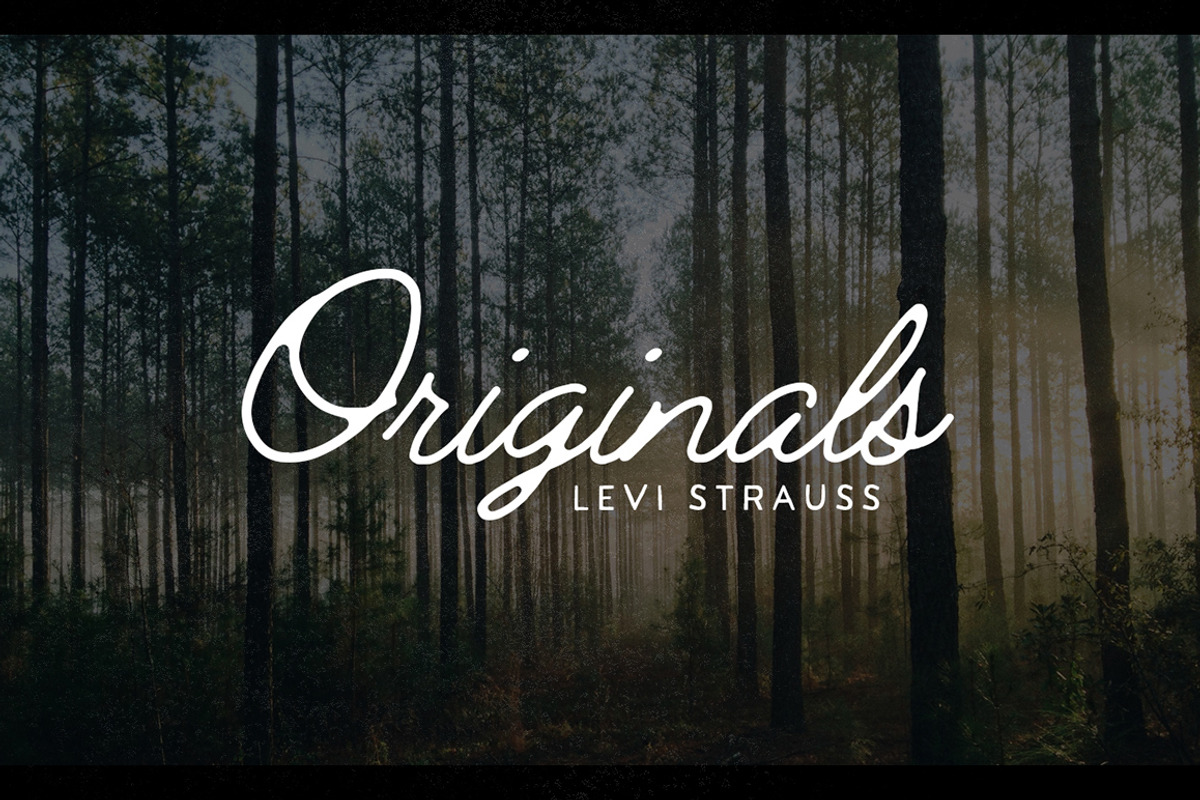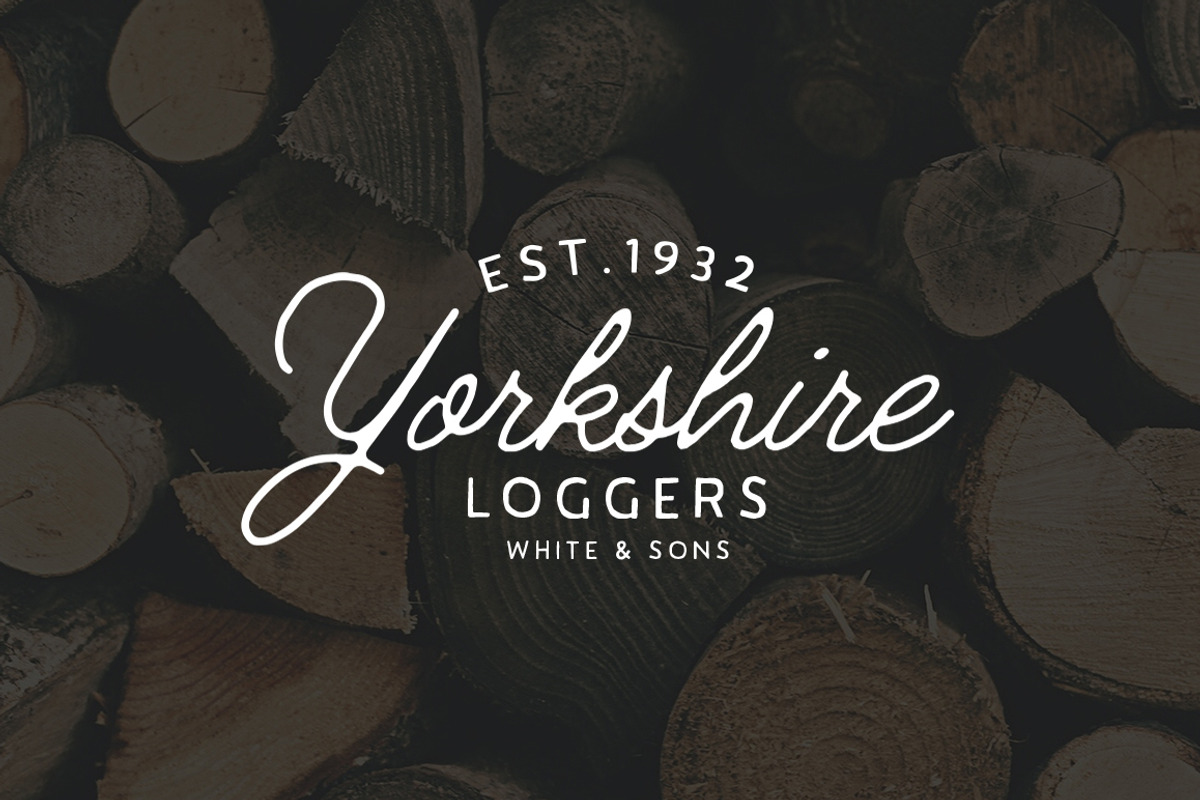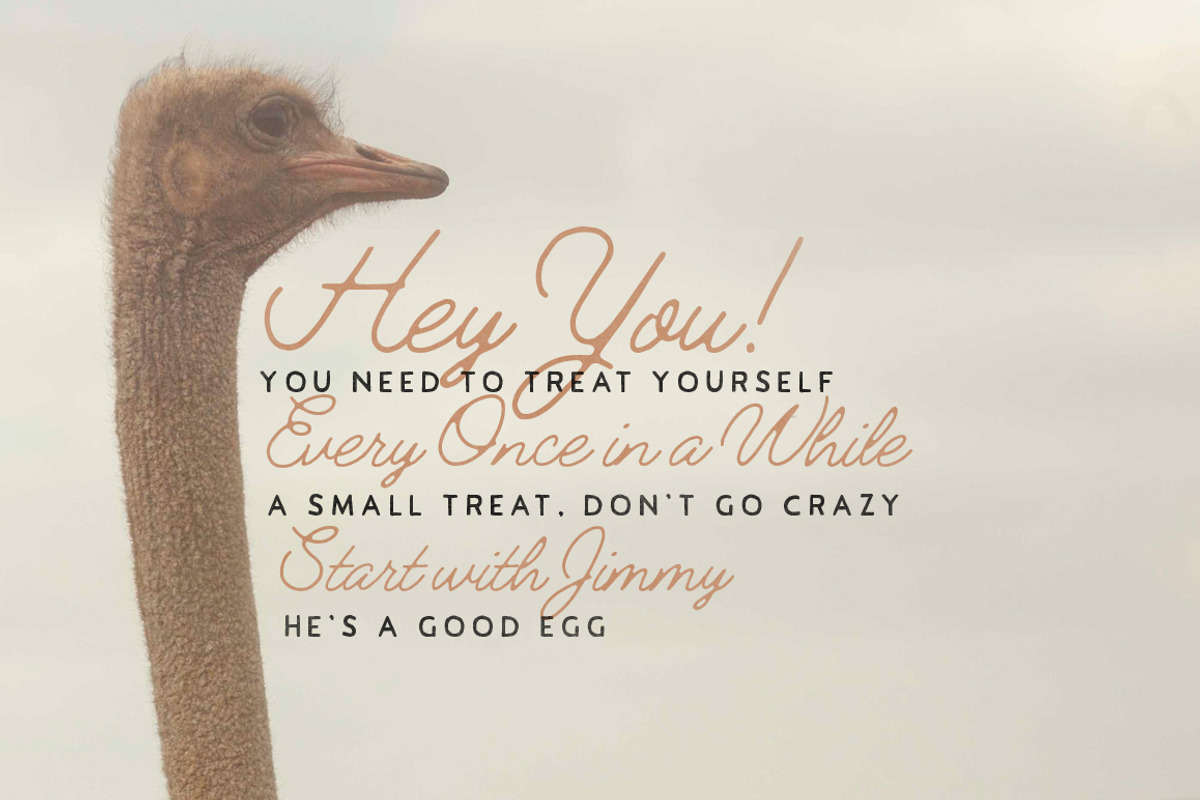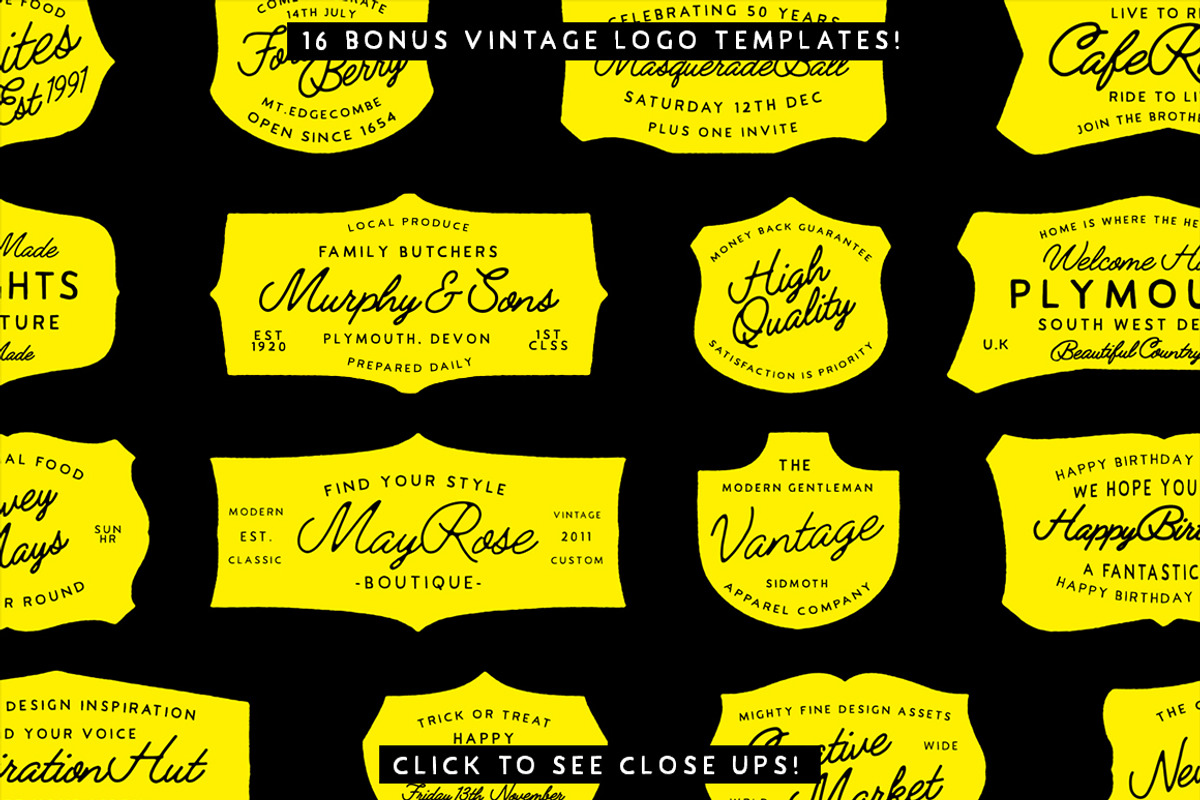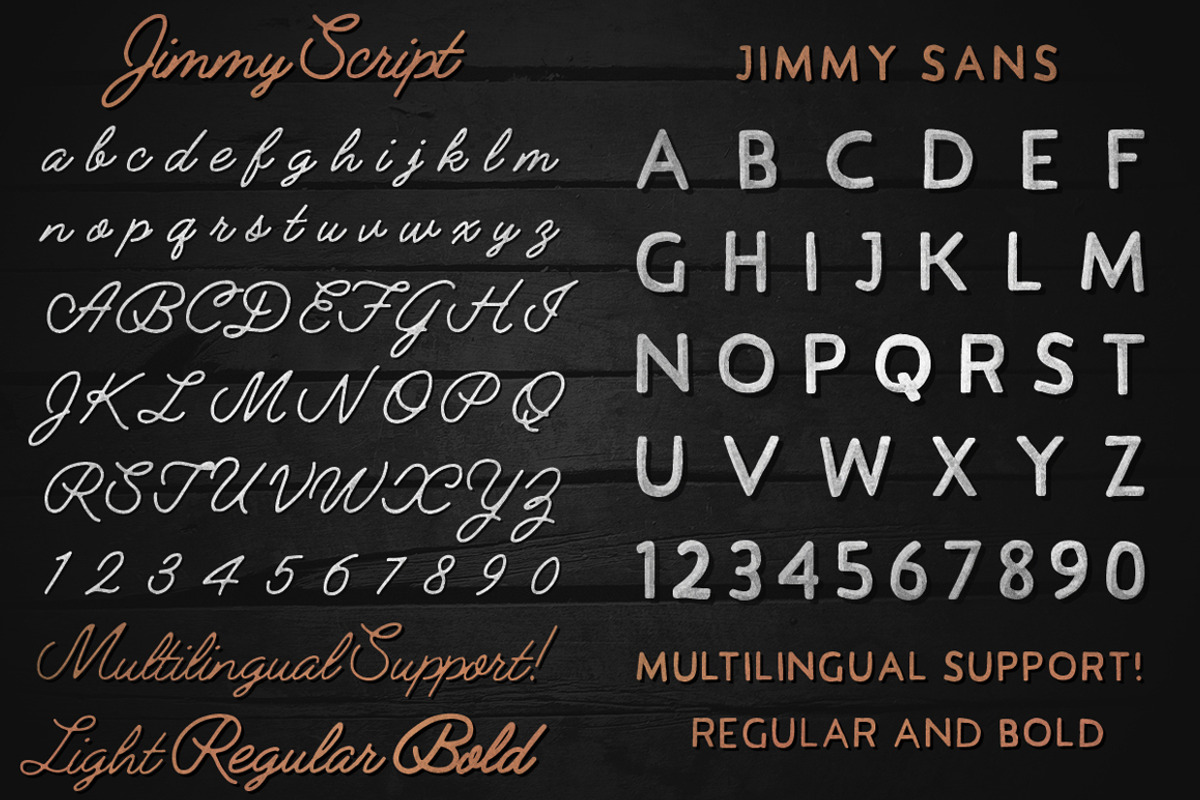
Jimmy Font Duo (5 Fonts) + Extras!
Jimmy Font Duo (5 Fonts) + Extras! by Tom Chalky is a font selected for branding, posters, packaging, typography.
- It includes a handcrafted script font (Light, Regular and Bold weights included!) and a perfectly complementing all capitals Sans (Regular a
Why Jimmy Font Duo (5 Fonts) + Extras! is worth a look
Jimmy Font Duo (5 Fonts) + Extras! by Tom Chalky fits naturally into Branding, posters, packaging, typography.